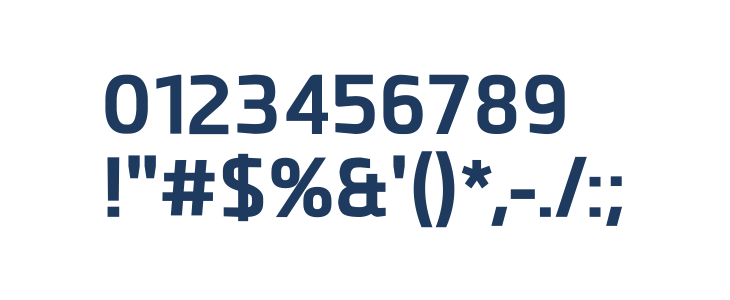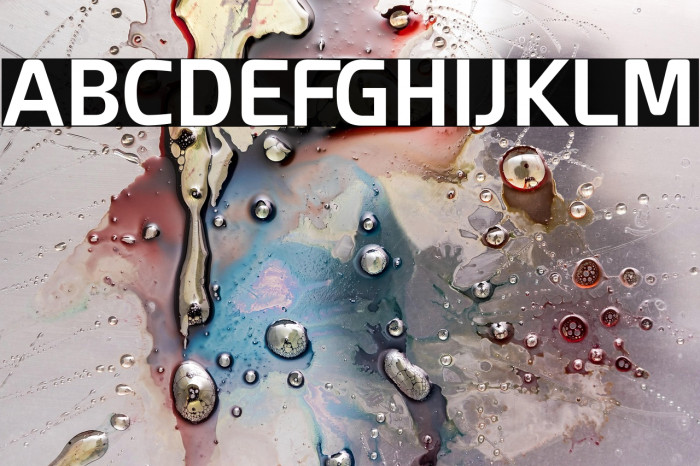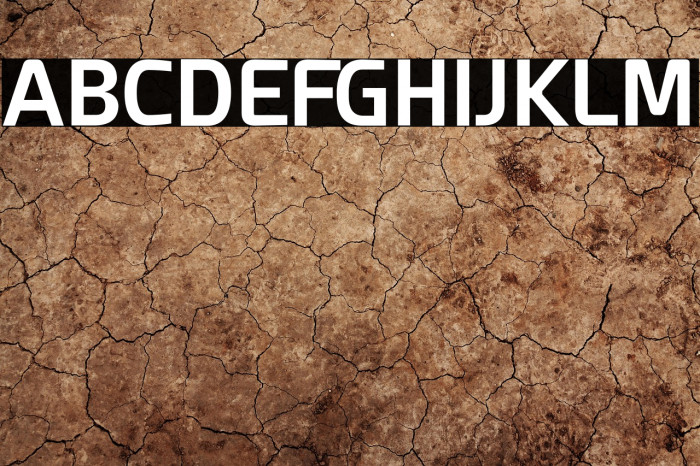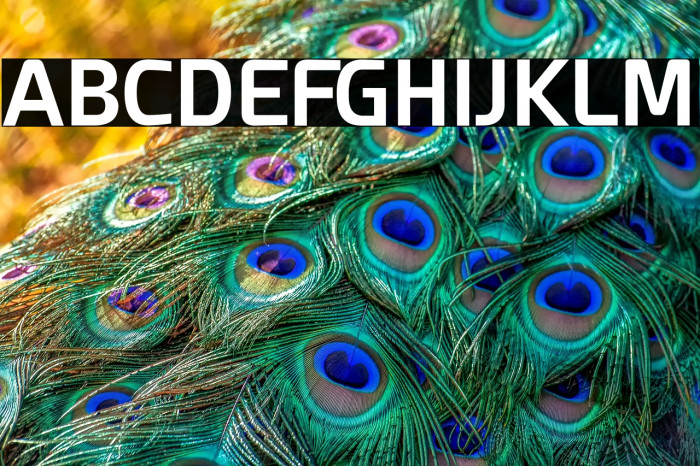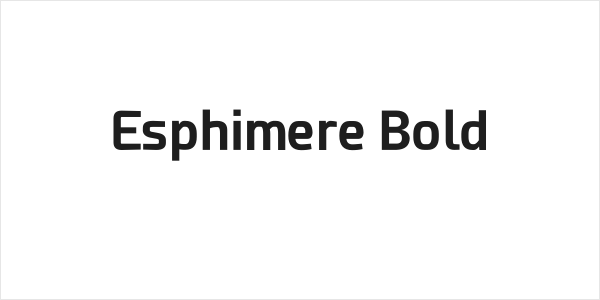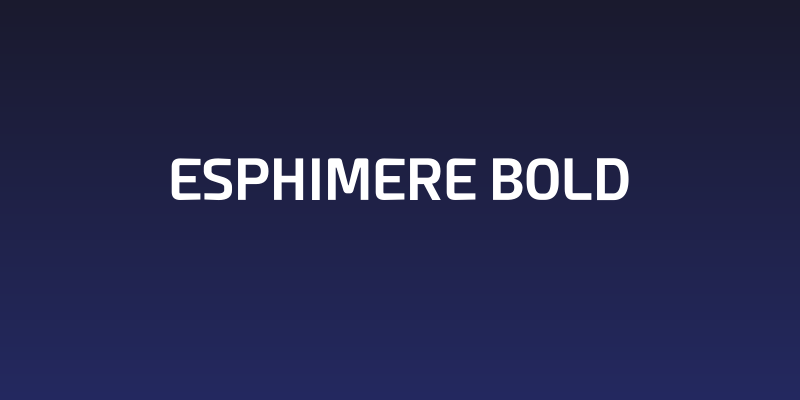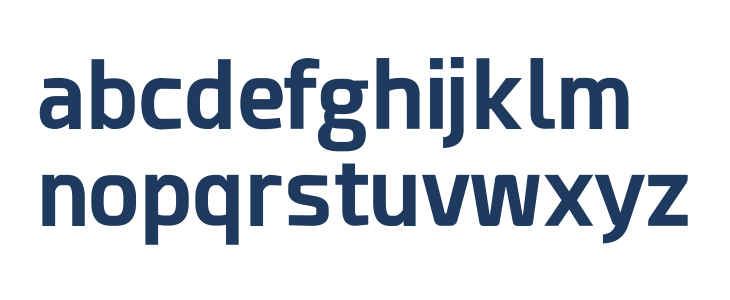
Esphimere Bold Font
Esphimere Bold Description
This font features a bold and modern sans-serif style with clean, geometric lines and a strong presence. The uppercase letters are uniform in height, providing a balanced and structured appearance. The lowercase letters maintain the same geometric precision, with rounded edges that soften the overall look. The numerals are consistent with the letterforms, ensuring readability and cohesion. Special characters are well-integrated, matching the font's overall aesthetic. This font is versatile, suitable for a variety of design applications where clarity and impact are essential.
| Use Case | Headlines, Logos, Digital Interfaces |
| Proposed Projects | Ideal for branding, advertising, headlines, and digital interfaces where a modern and impactful look is desired. |